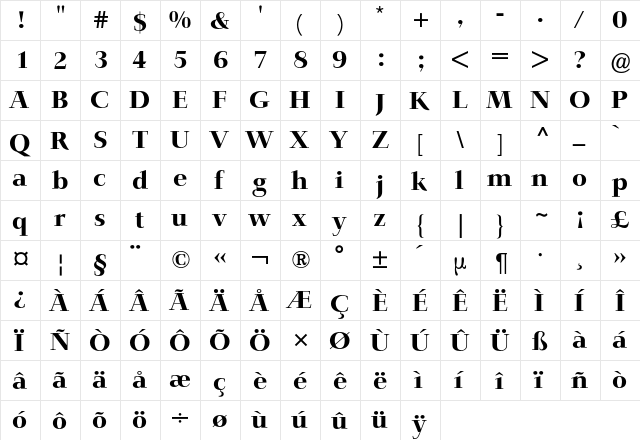
Jaeger-Antiqua BQ Regular
Jaeger-Antiqua BQ offers clean, dependable letterforms without strong stylistic allegiance, making it a practical choice for designers who need flexibility.